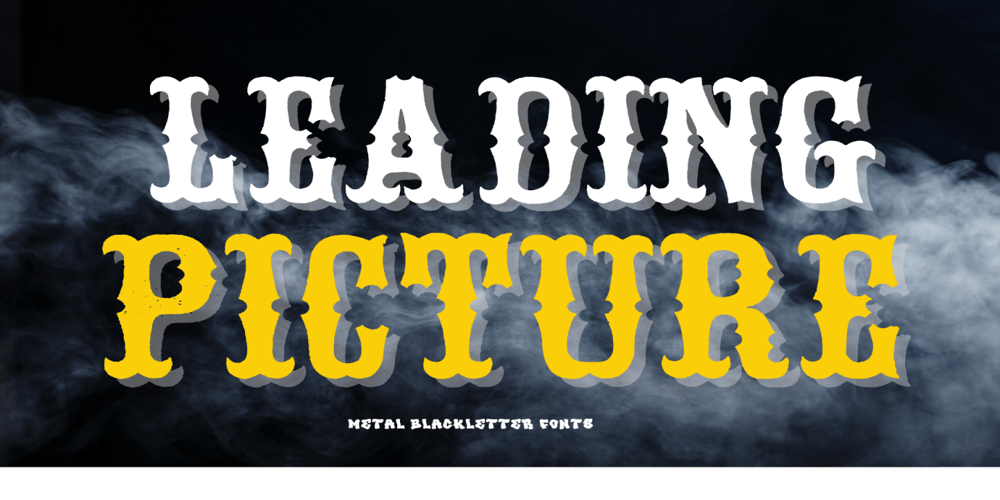
Leading Picture
Leading Picture font
Leading Picture Font Family was designed by Emo Risaliti and published by Adita Fonts. Leading Picture contains 1 styles and family package options. Metal Blackletter Old wood type, western font. Uppercase glyphs are a bit distressed, while the lowercase are cleaner.